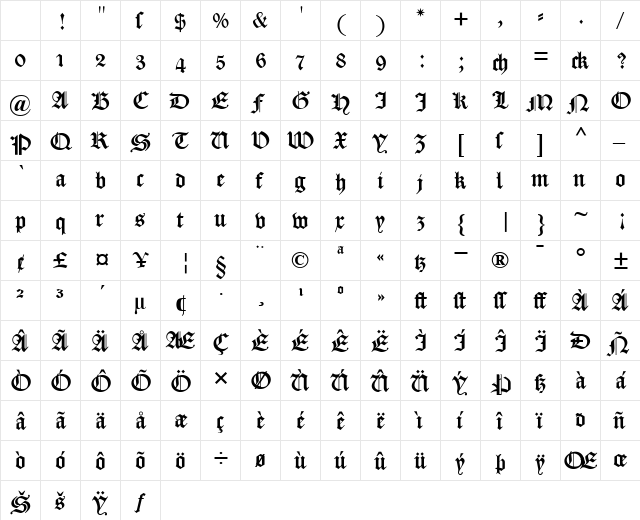
Complete DS CaslonGotischOsF Regular glyph index. Displaying only characters natively supported by DS CaslonGotischOsF Regular font.
DS CaslonGotischOsF is a composed and adaptable typeface that performs quietly and consistently across a wide range of design contexts.